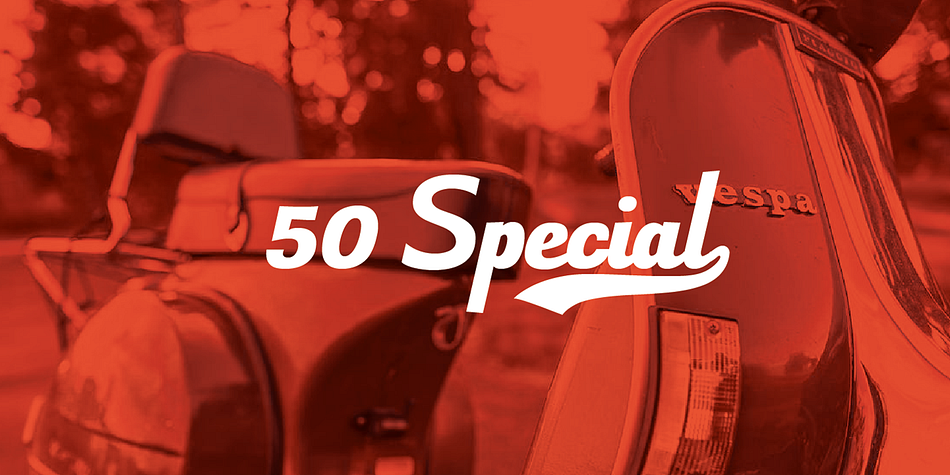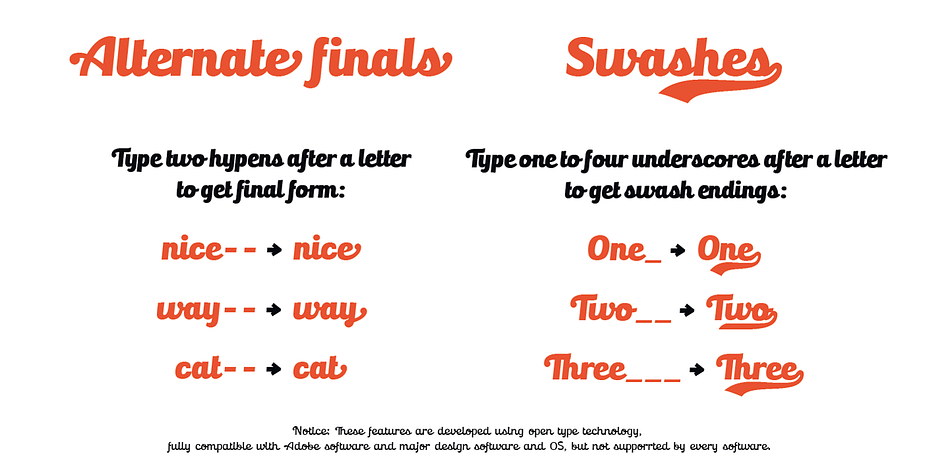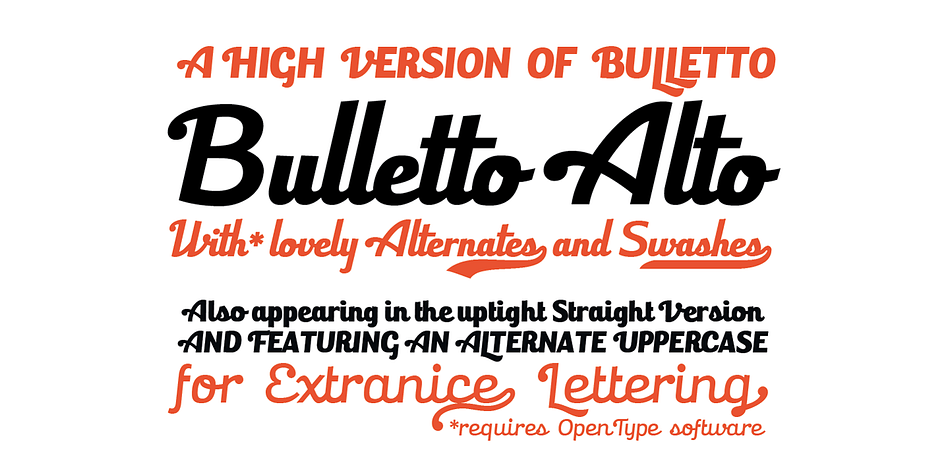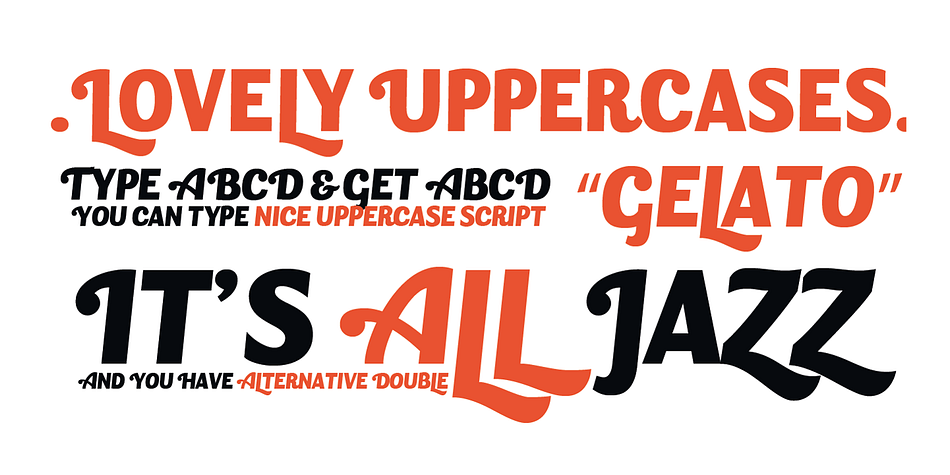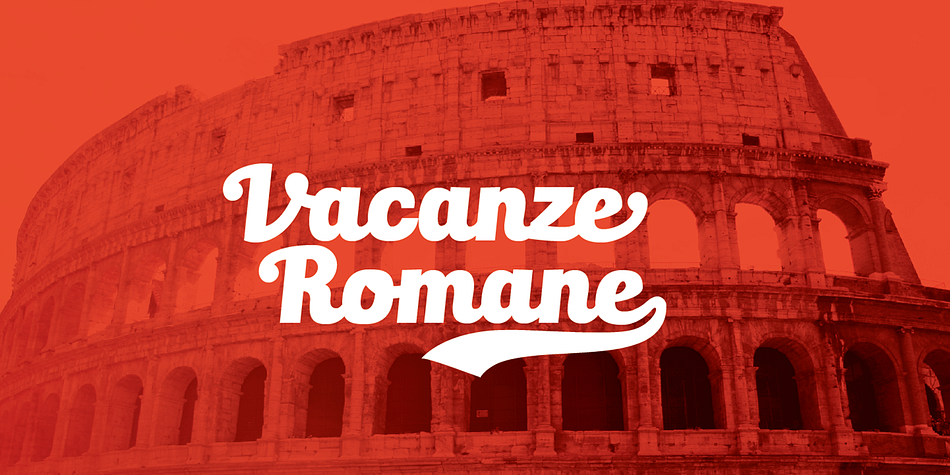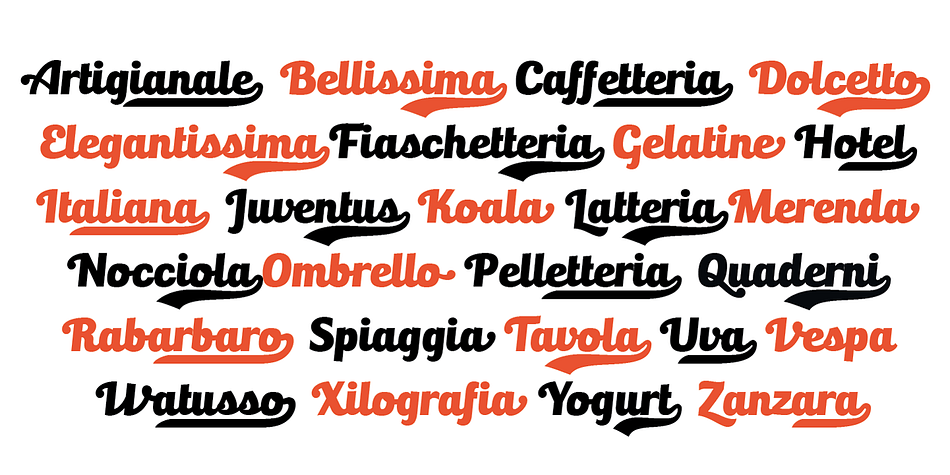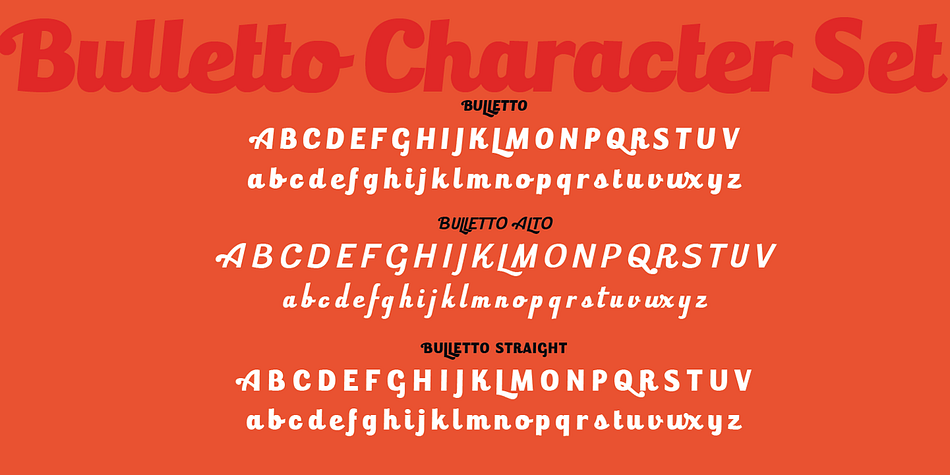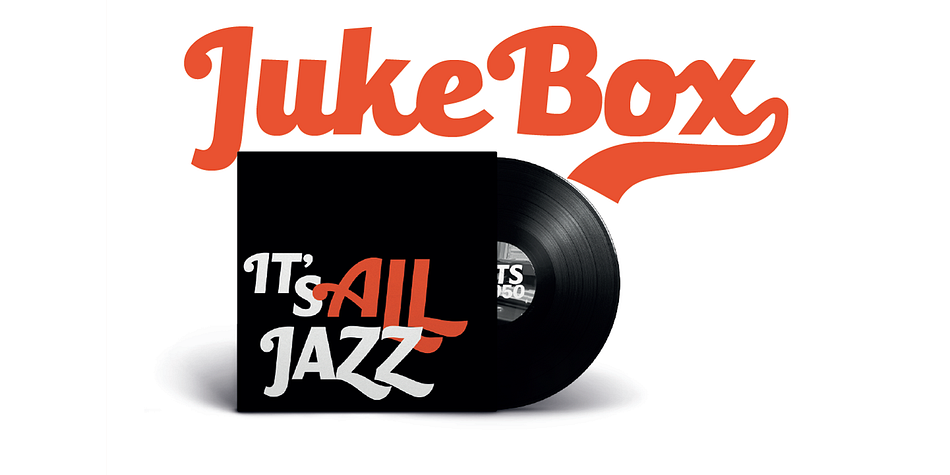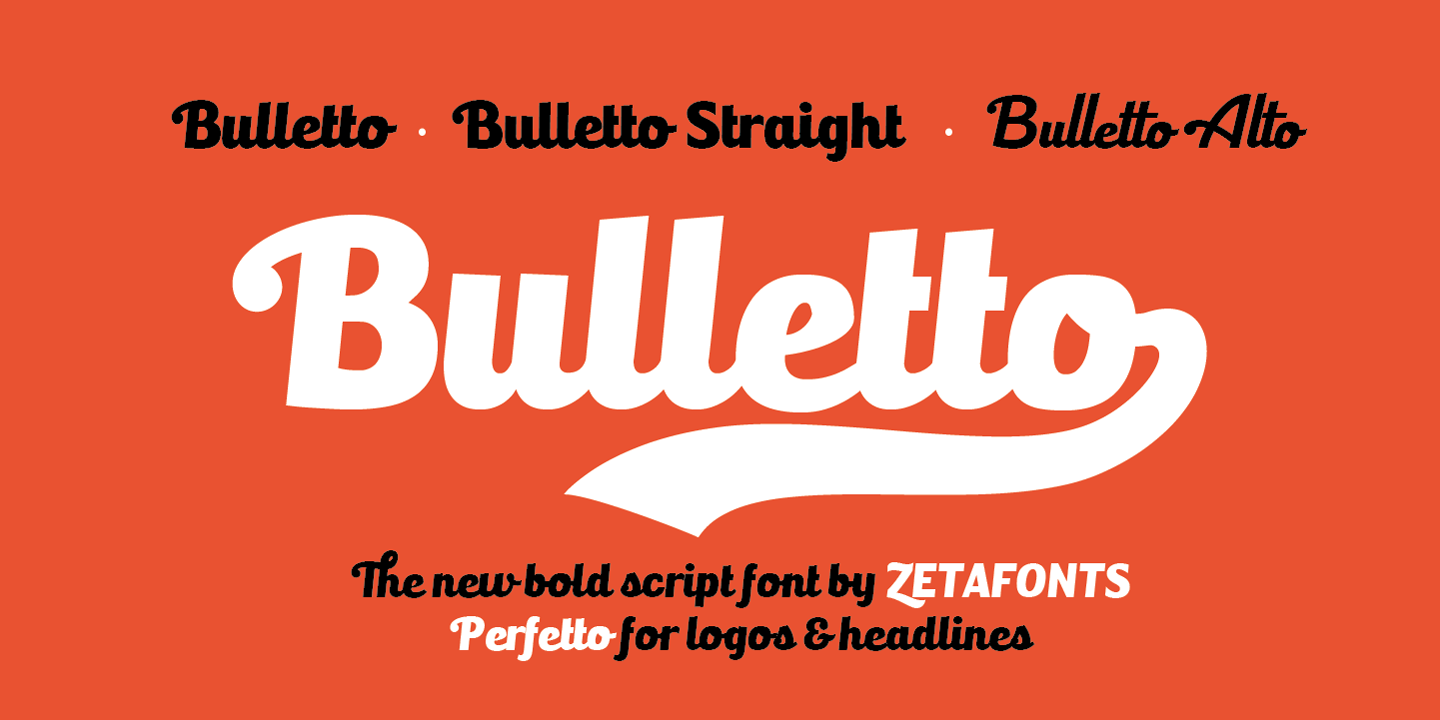
Designed by Cosimo Lorenzo Pancini, Bulletto is a script and display sans font family. This typeface has five styles and was published by Zetafonts.
Bulletto is a bold display script font. Made for logos and headlines, it features a slight slant, connecting letterforms, and a big x-height.
OpenType features include ligatures, swashes, alternate finals and a full set of uppercase alternates. The complete family features Bulletto Regular and its upright version Bulletto Straight with their light companions. Plus Bulletto Alto, an italic version with taller ascenders and descenders for a more calligraphic look.
Foundry | Zetafonts |
Styles | Display Sans, Script |
Designer | Cosimo Lorenzo Pancini |